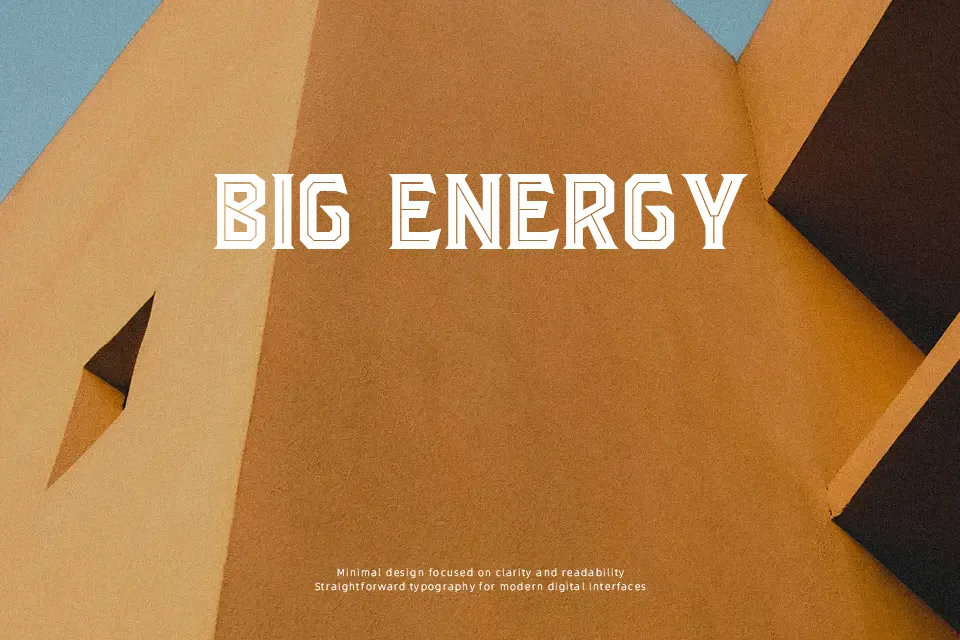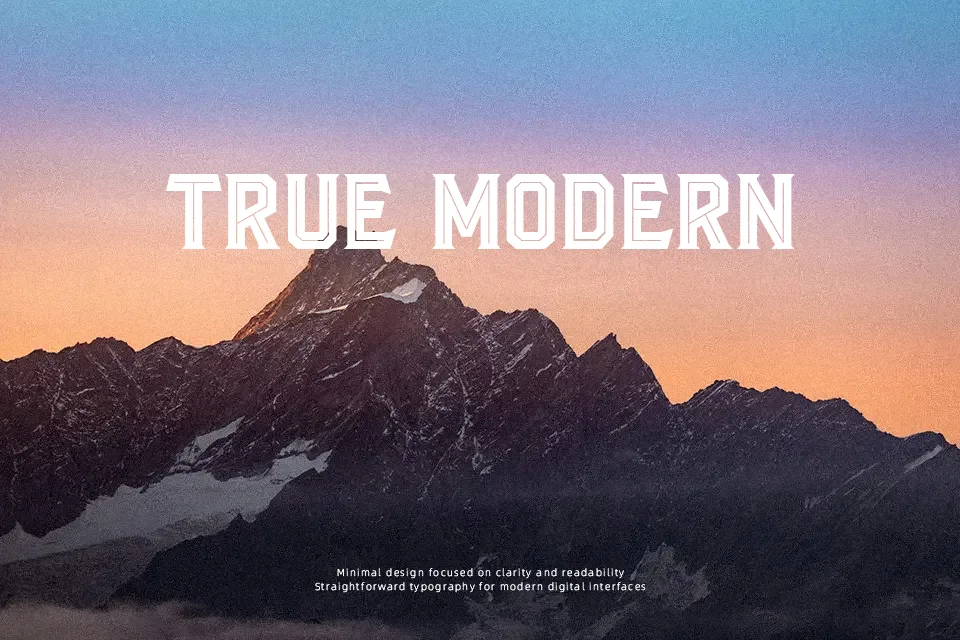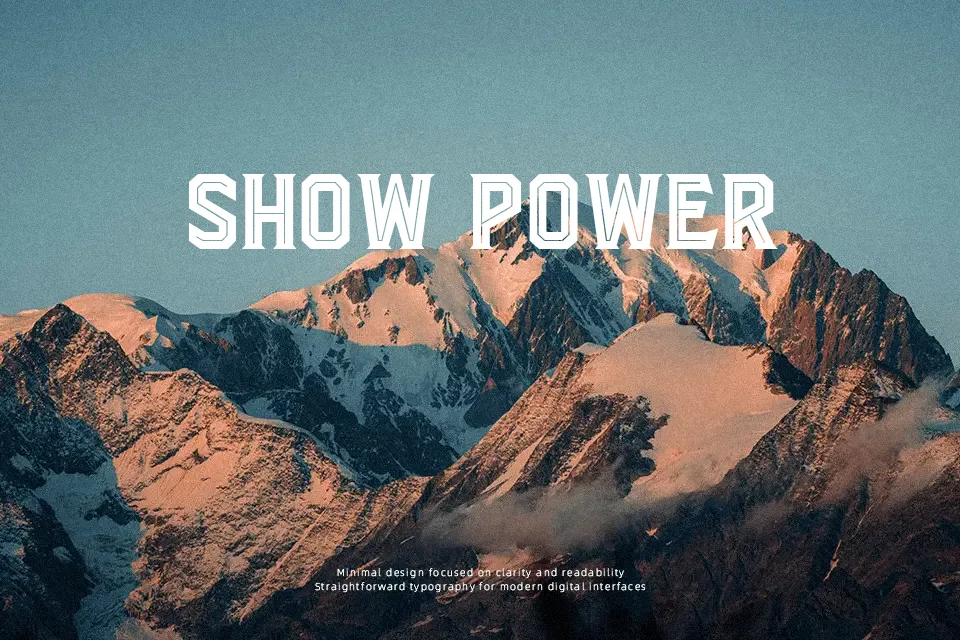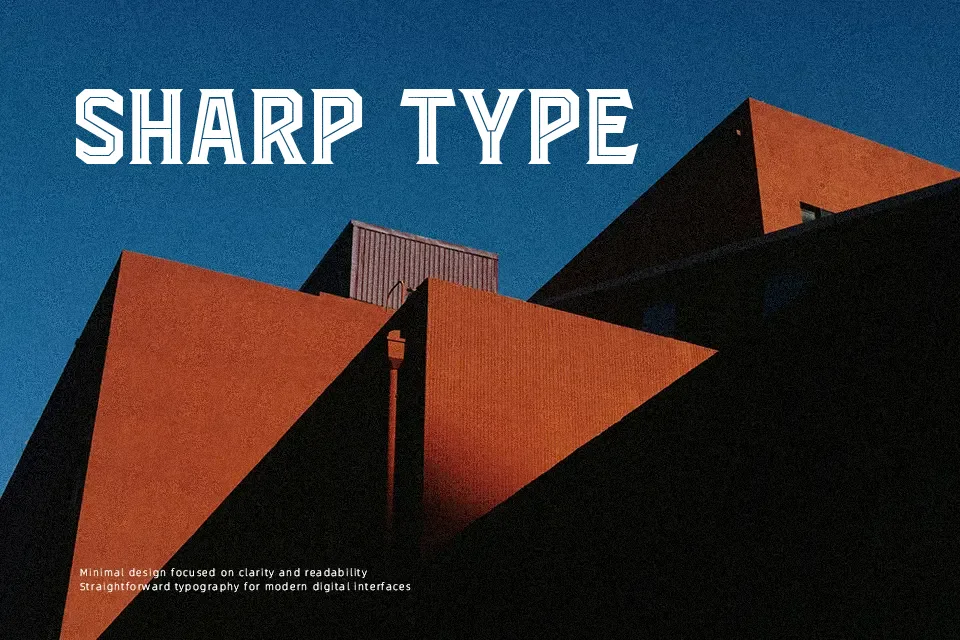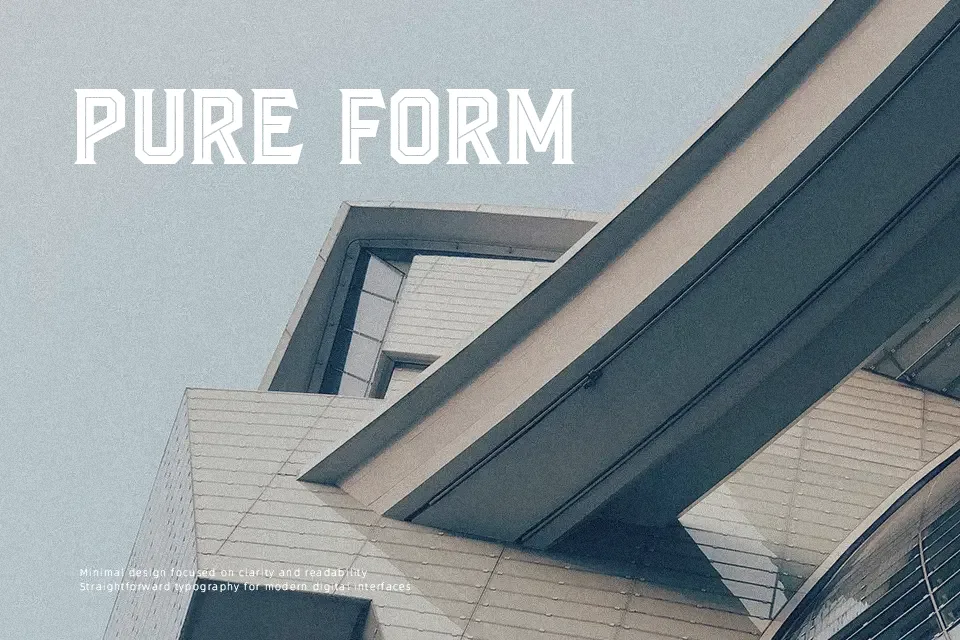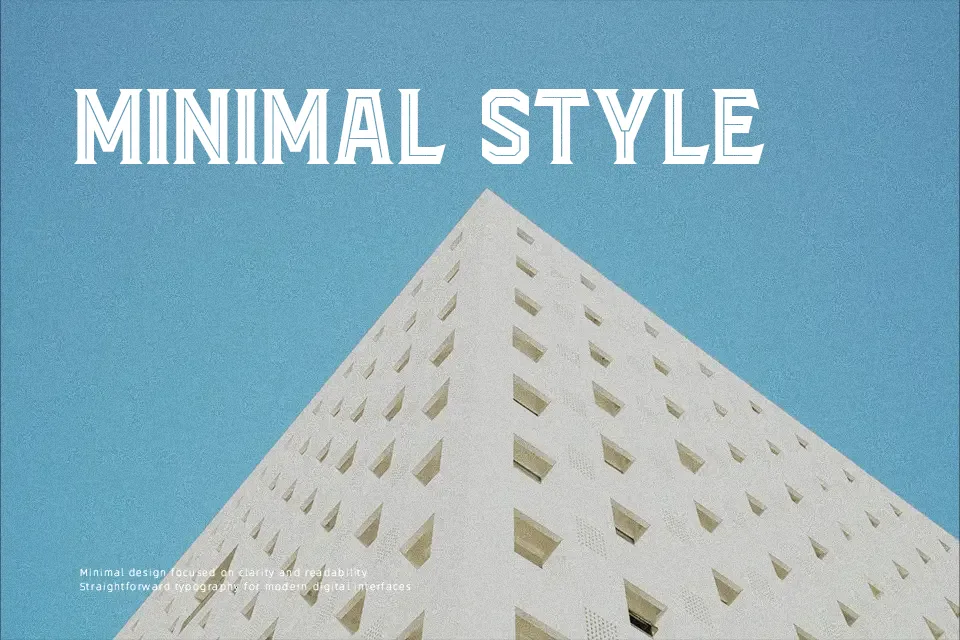
Blacktroops Inline Font
Designed by Mikrojihad Typography
Blacktroops Inline is an old-school, all-caps sans serif characterized by its pronounced, hollow center cut. The font carries a distinctly rugged, industrial weight with sharp geometry and vintage appeal. The structural sturdiness gives it a commanding presence on the page, feeling similar to traditional athletic or collegiate block typography but with sharper modern corners. It excels when deployed in large, high-impact environments like motorcycle club insignias, denim brand logos, and striking event posters where the inline detailing remains legible. However, the internal negative space quickly clogs up at smaller scales, meaning it struggles heavily as body copy or secondary informational text. The rigid geometry also clashes with delicate visual identities.
Vintage denim and apparel graphics
Heavy industrial brand identities
Large-format concert posters
Small secondary paragraph text
Refined or elegant stationery
Digital user interface elements